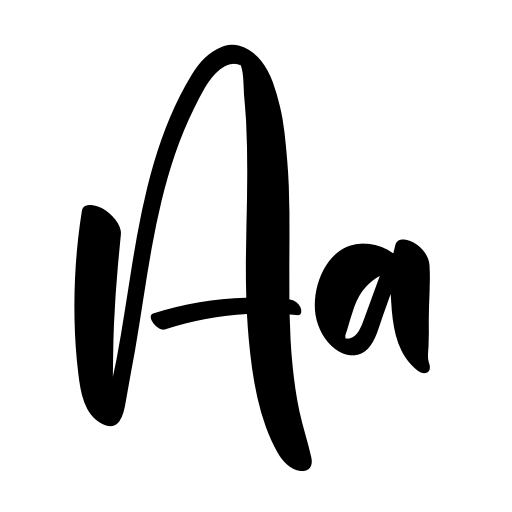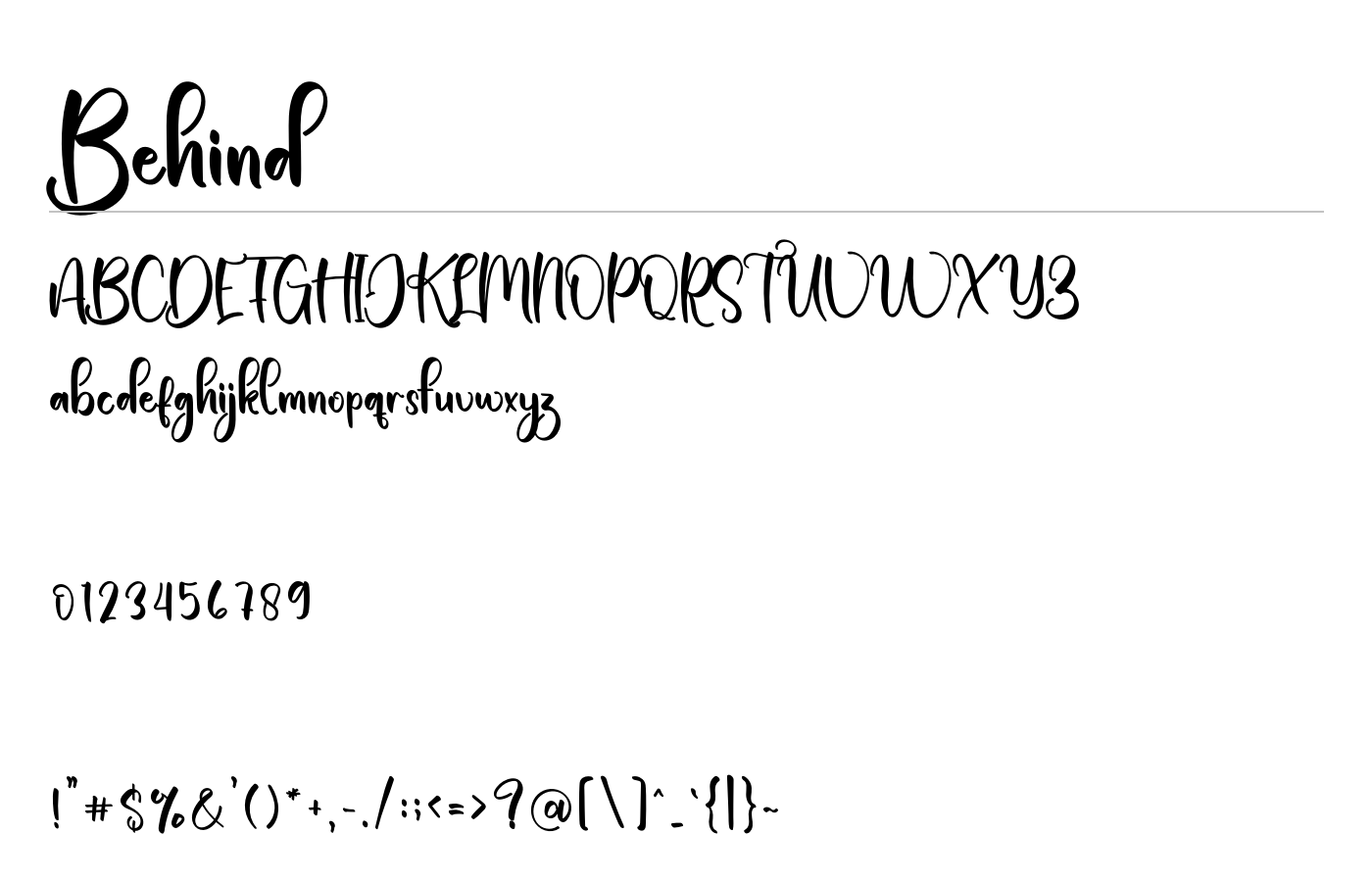
Behind Font is a playful and lively handwritten script with tall, narrow letterforms and a casual, friendly vibe. Its swirling strokes and variable line thickness give it a handcrafted charm, making it perfect for creative projects, greeting cards, or social media branding that aims to feel personal and approachable. This font works well in headlines or short text where a fun, informal style is desired.
Behind Font
About Behind Font